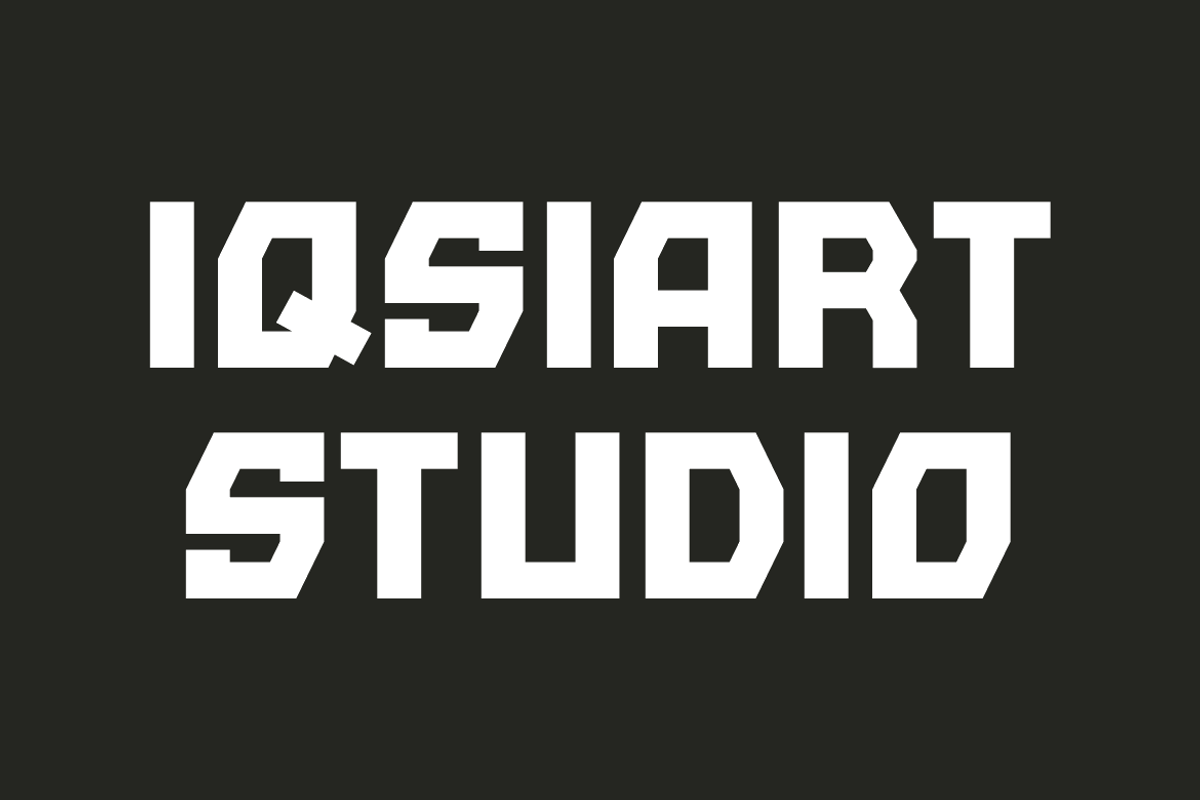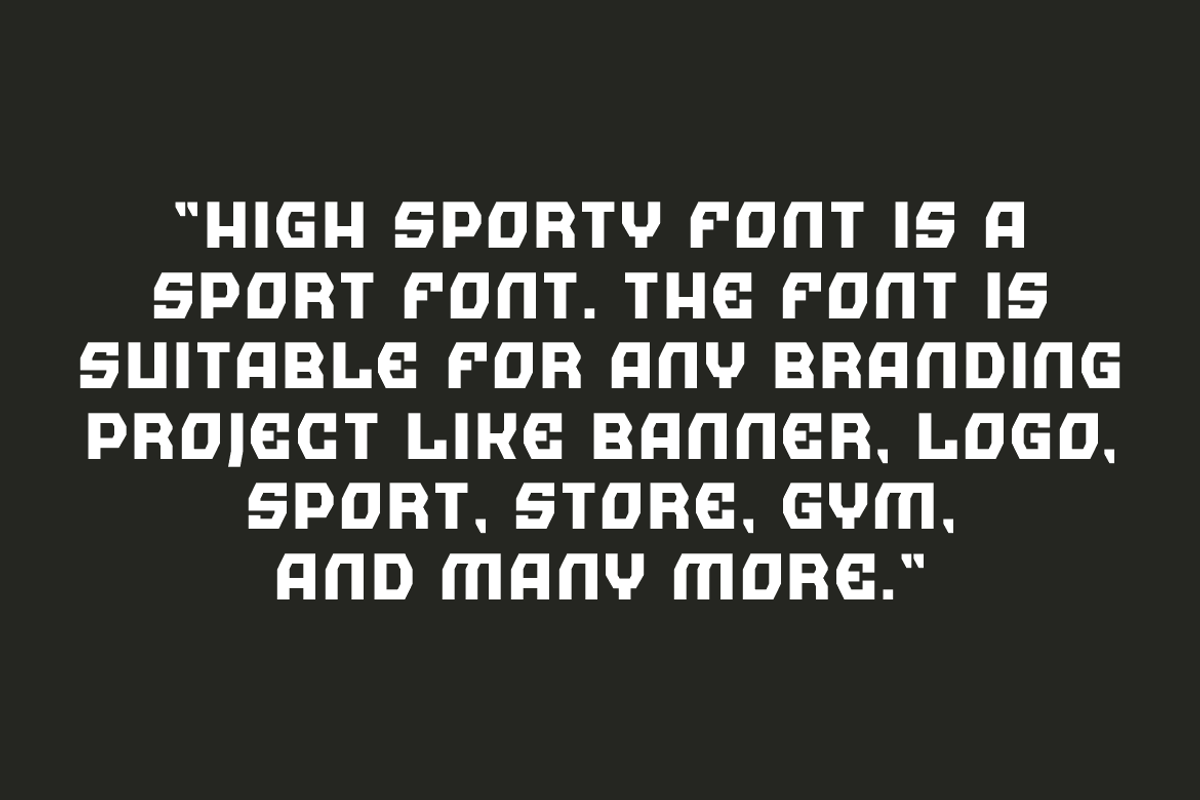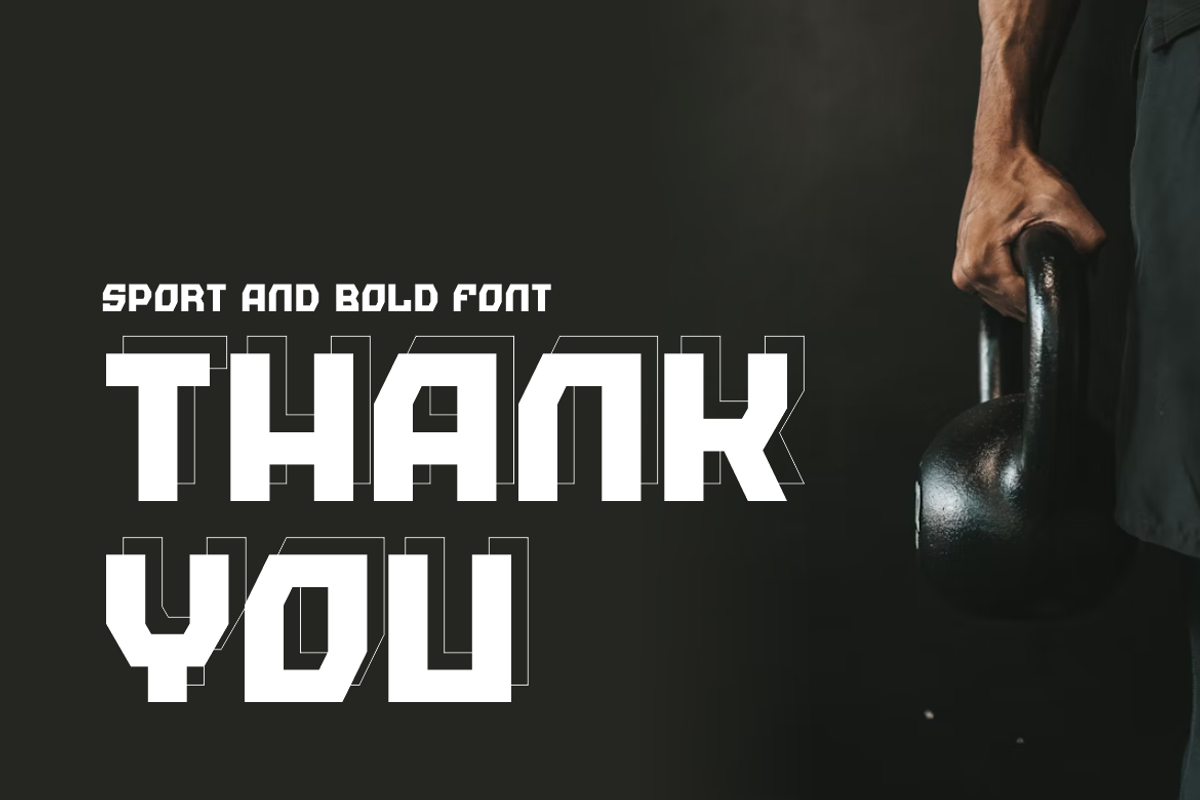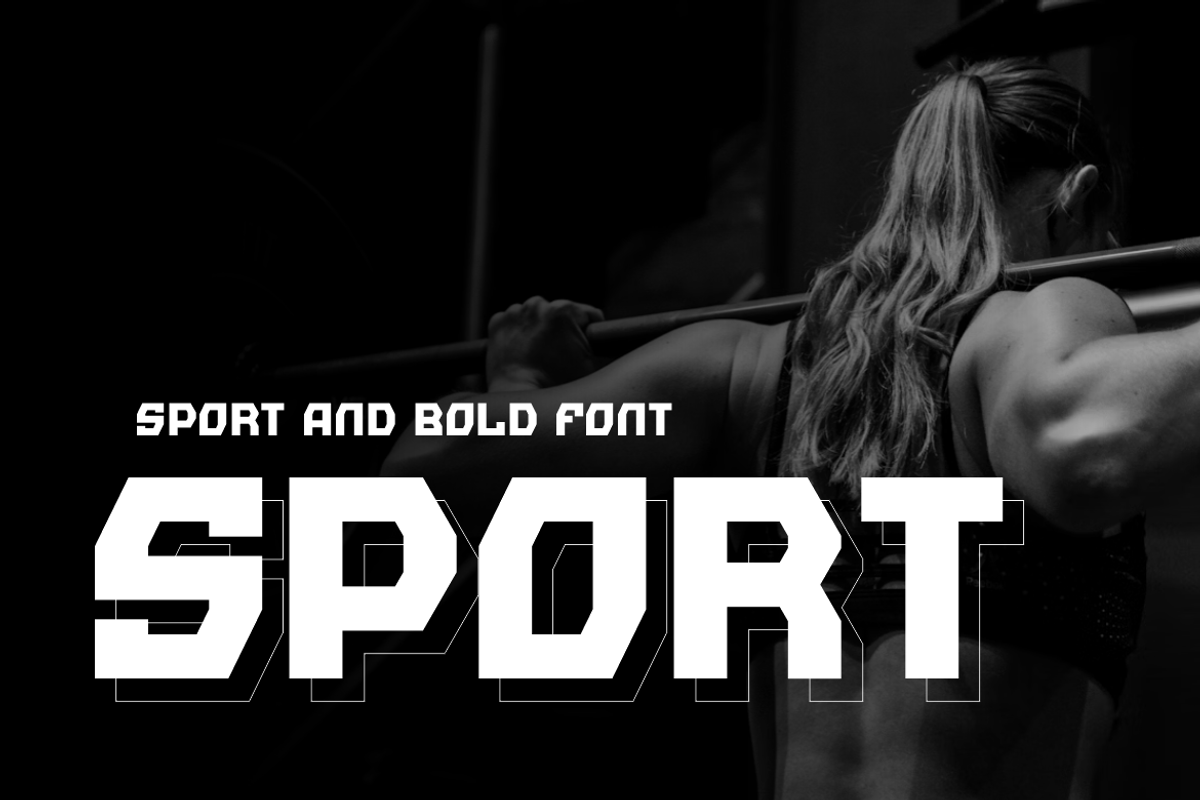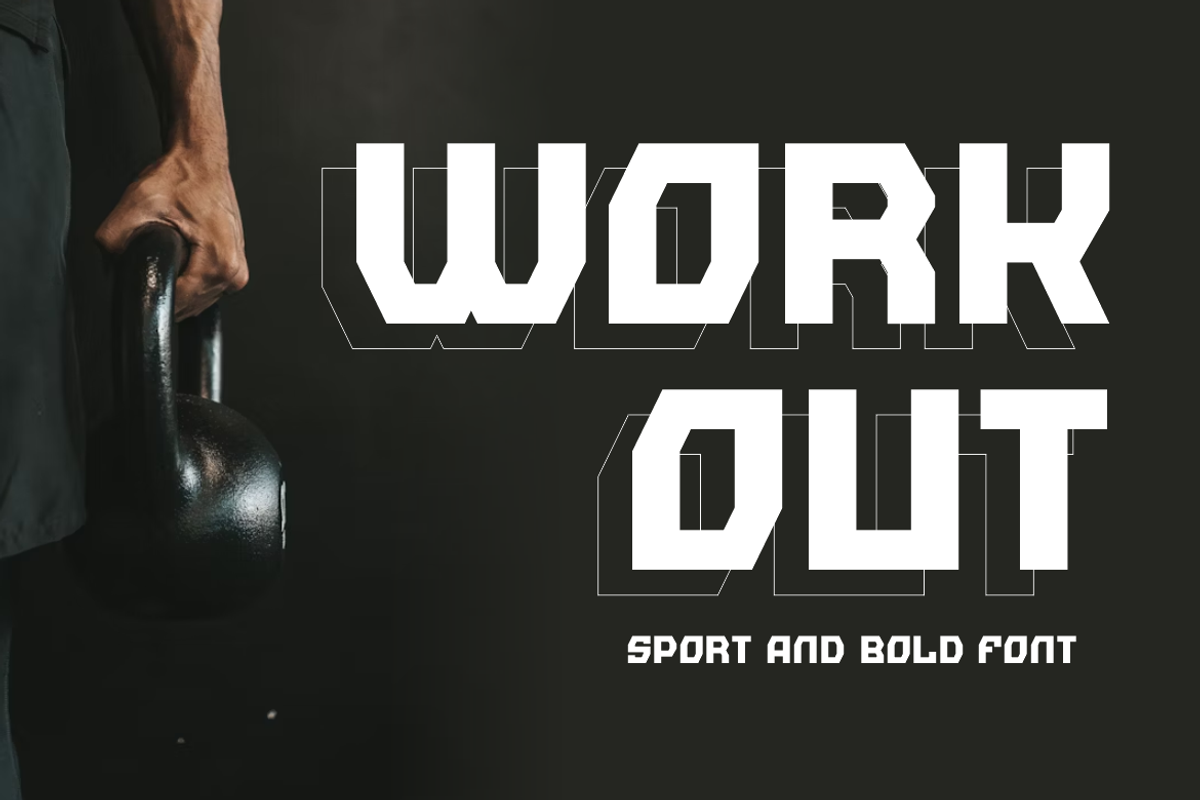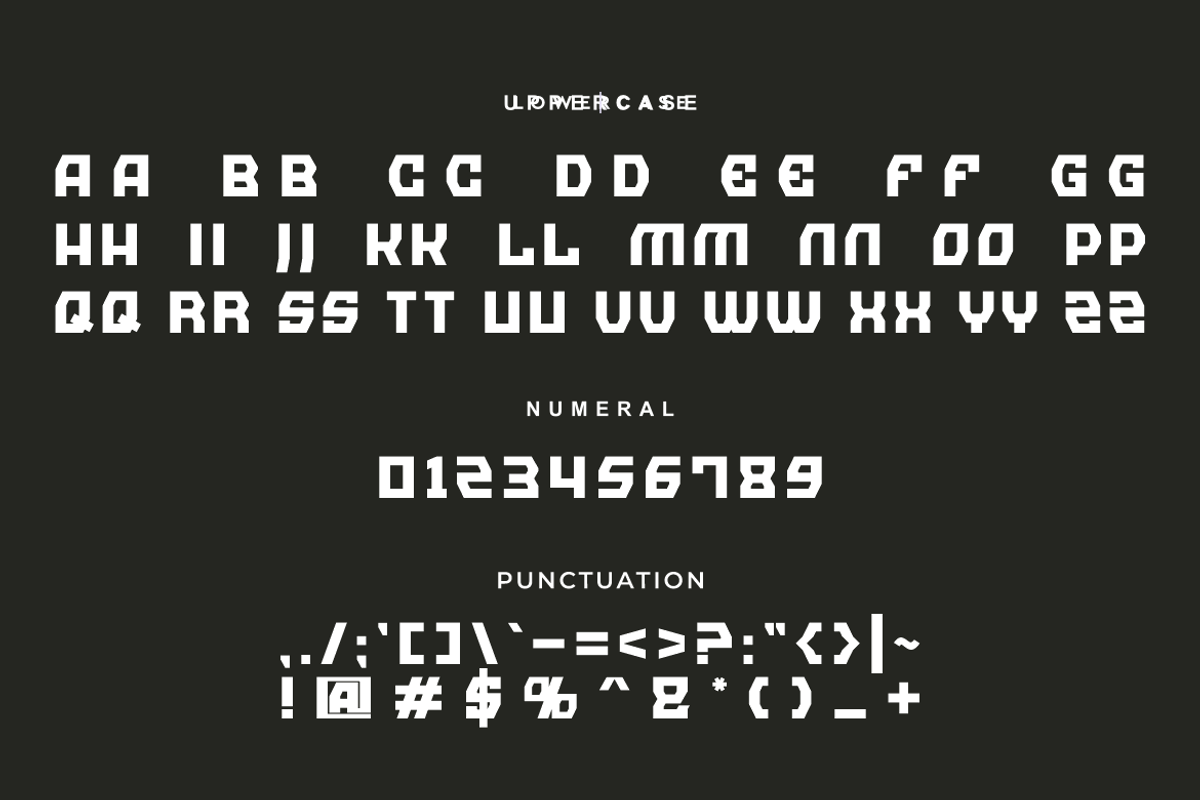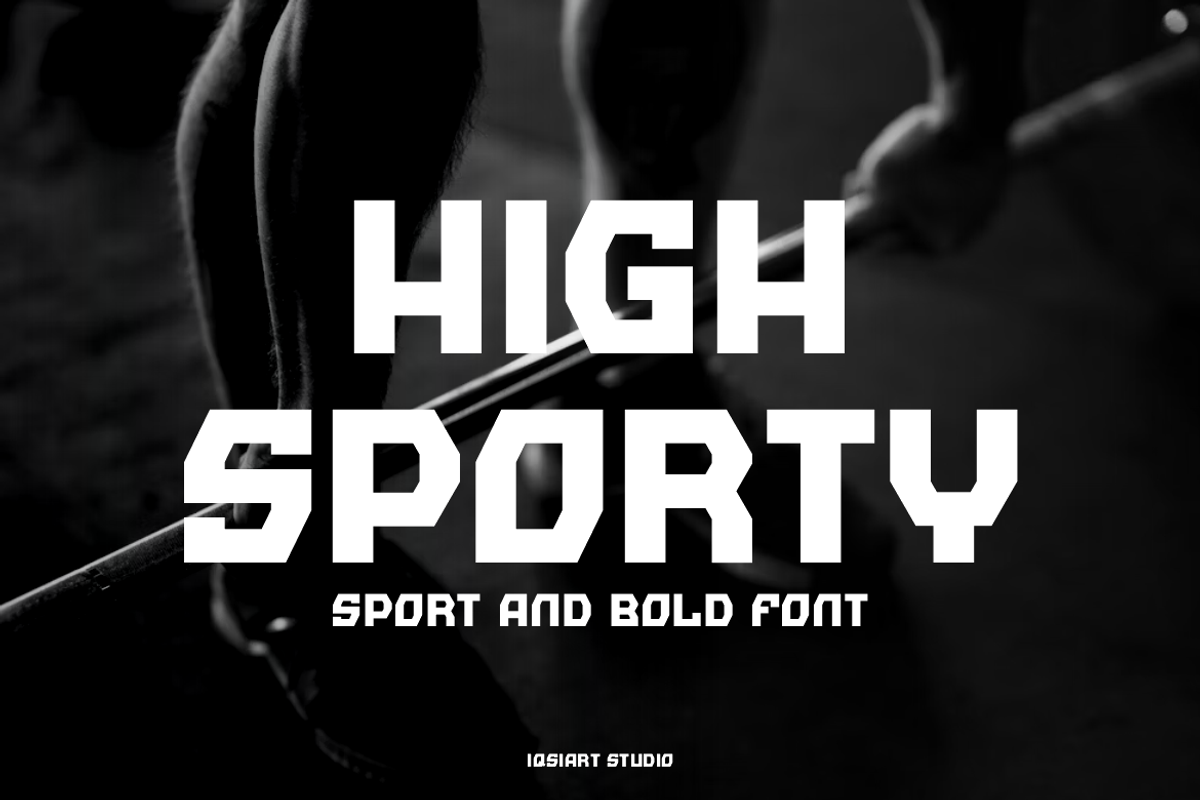
High Sporty Font
High Sporty Font is a best and authentic display font. This font can be used for your various needs. We provide various themes and font styles. visit our profile to get a wide variety of themes and different font styles you need.